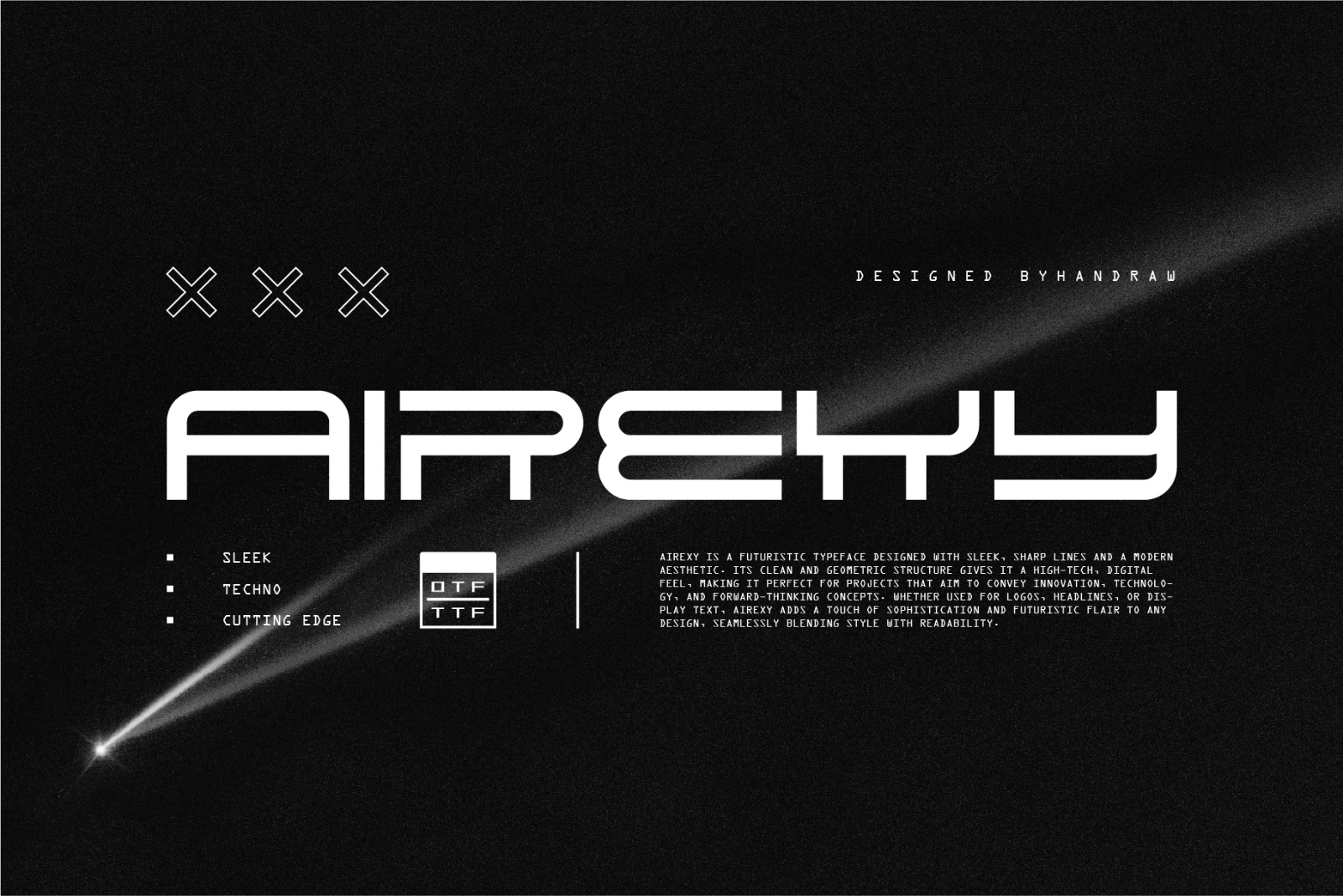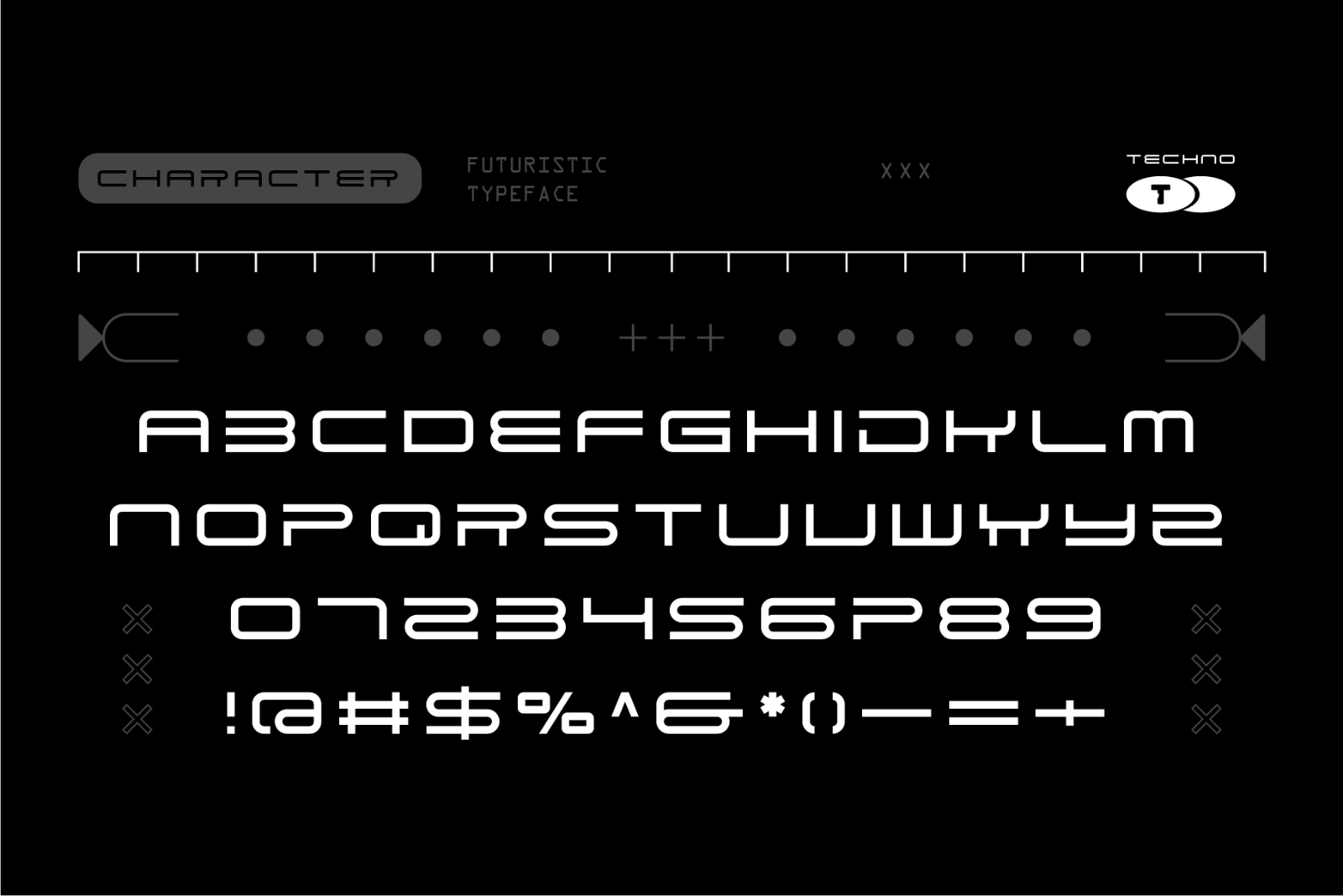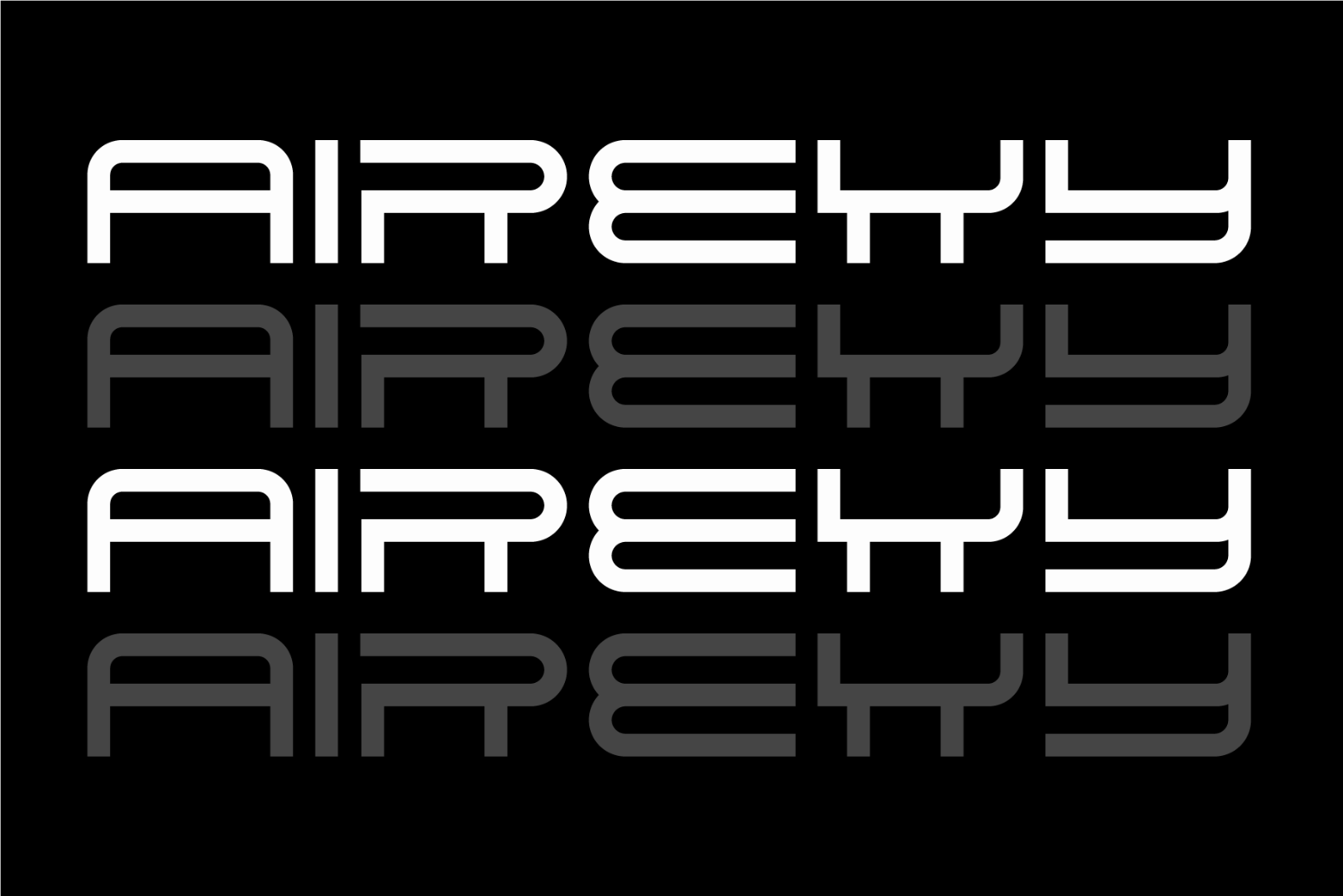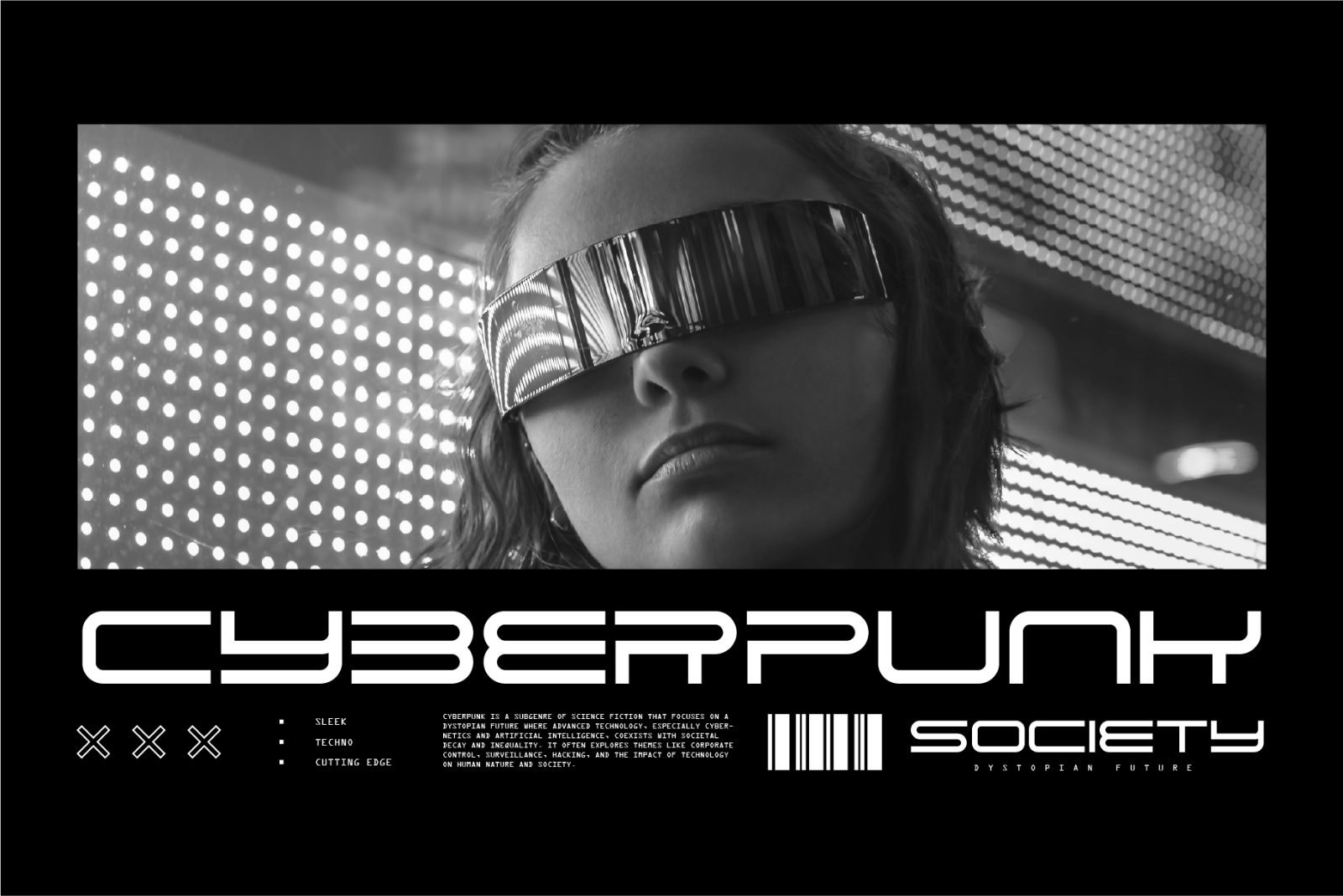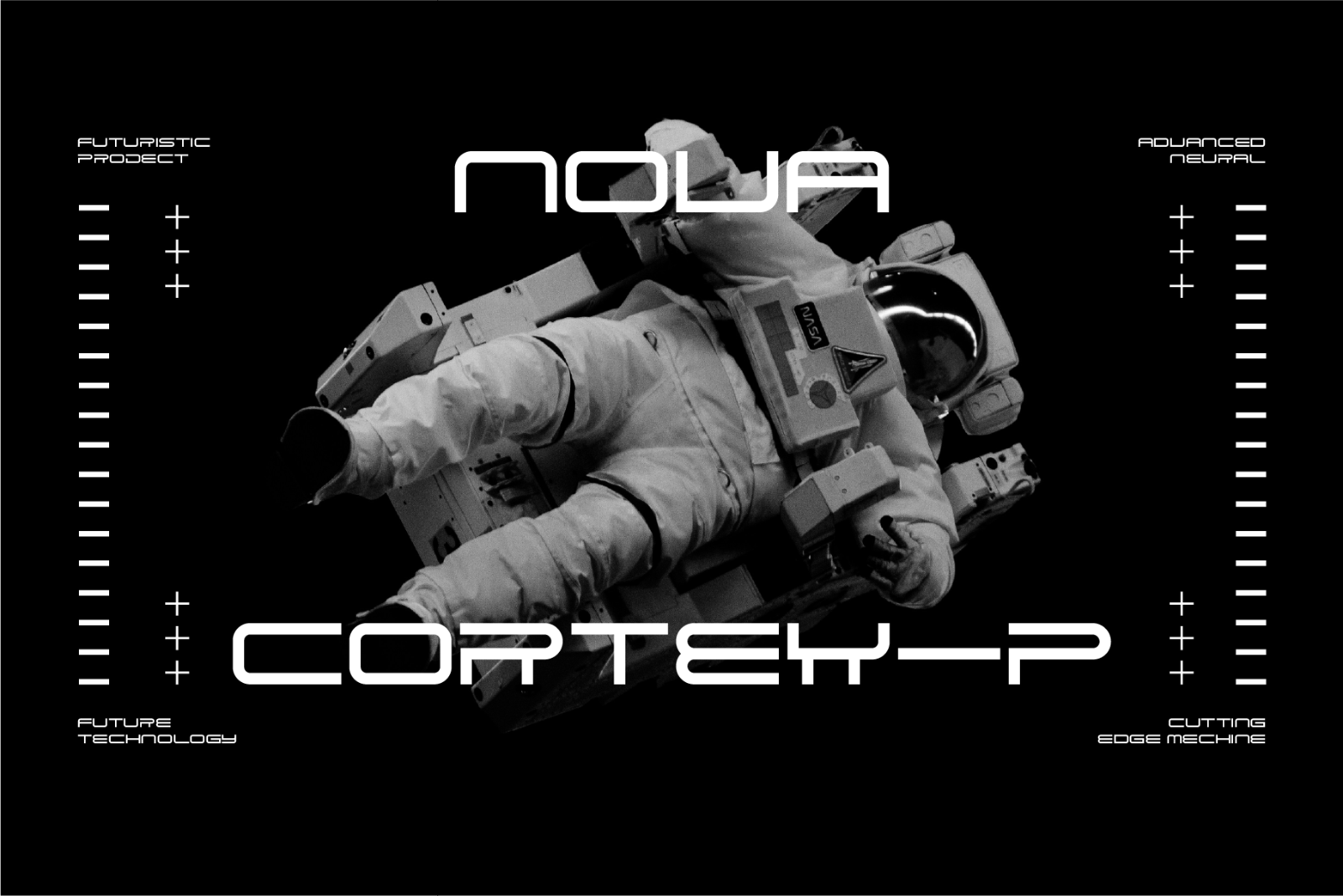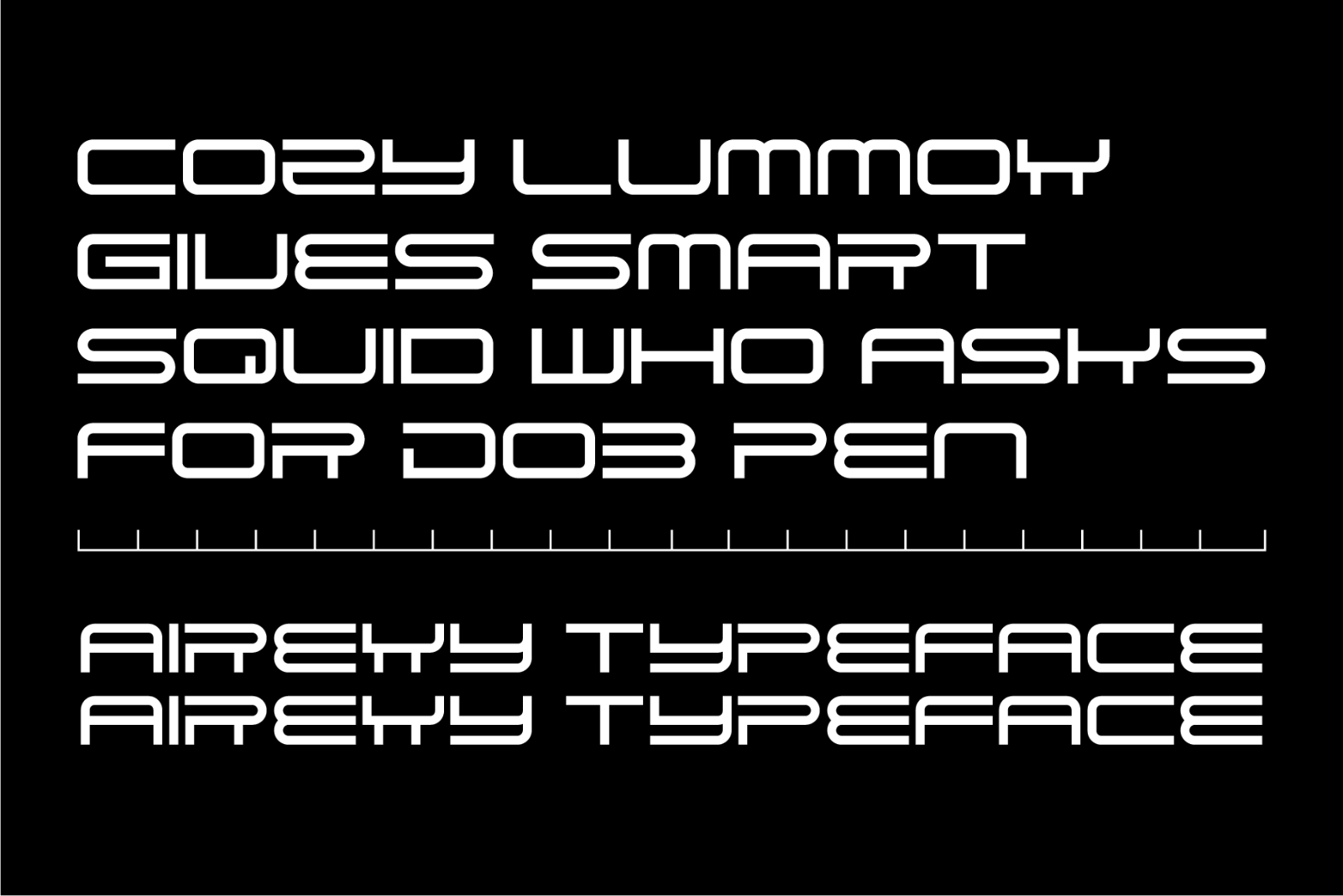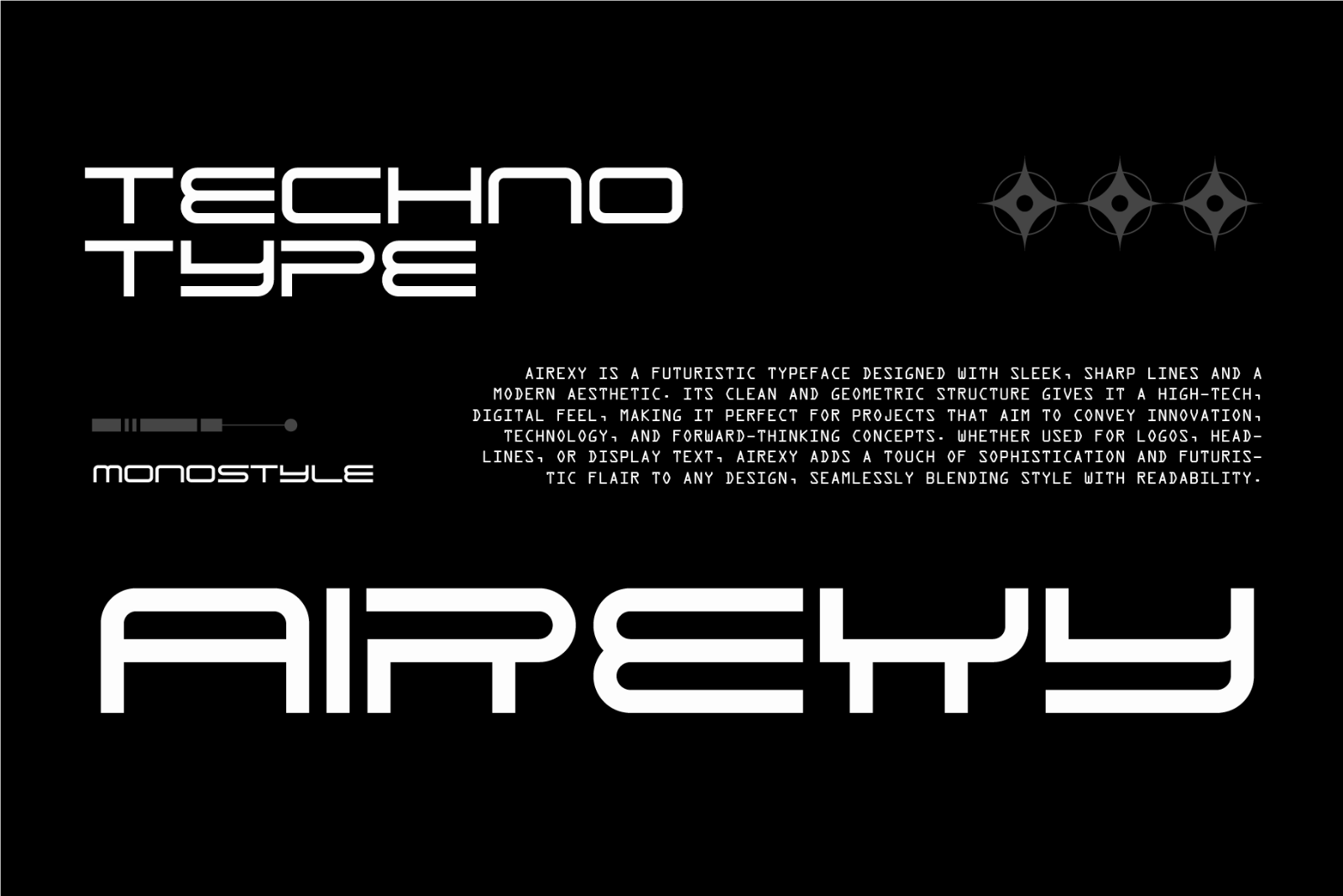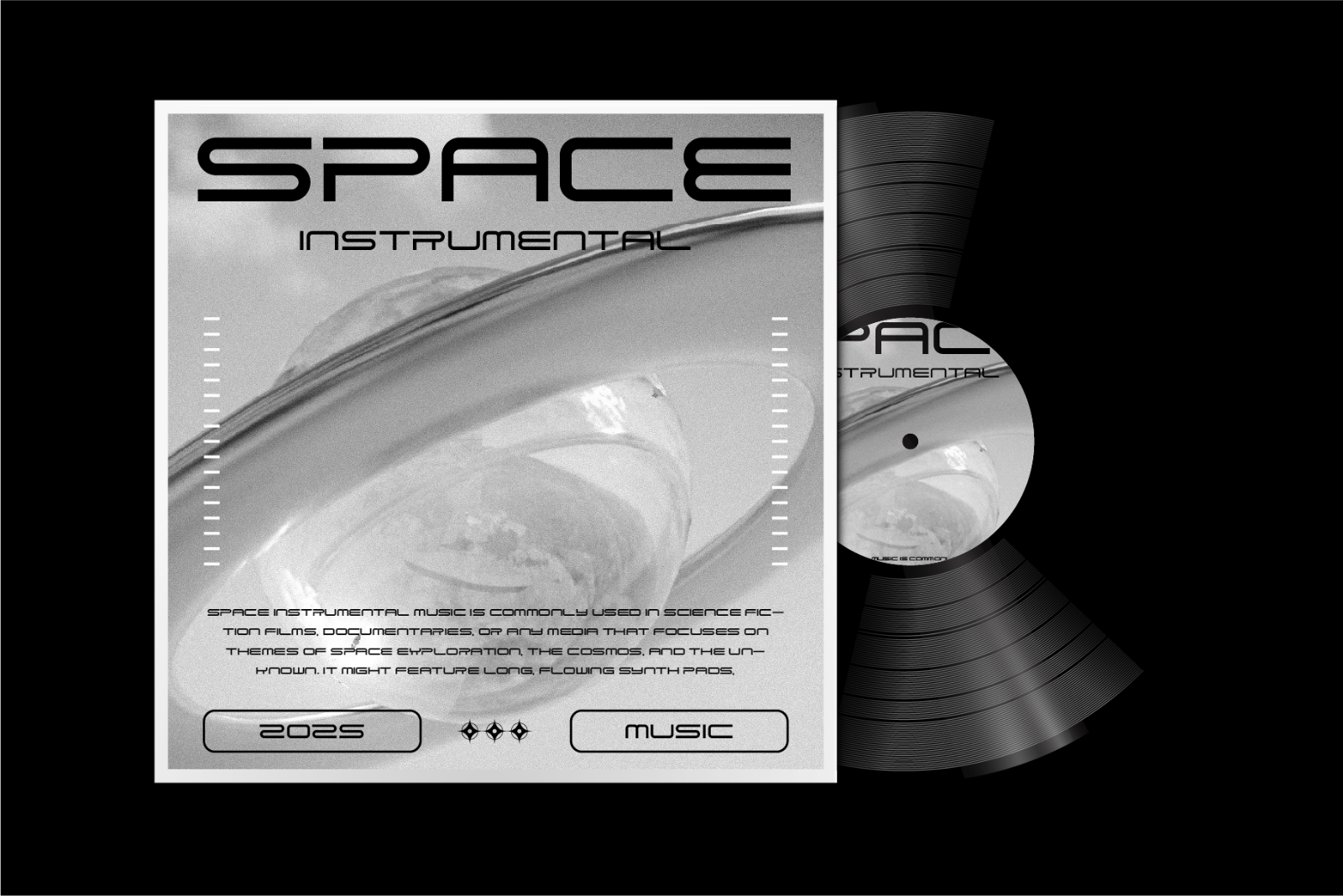
Airexy is a futuristic typeface designed with sleek, sharp lines and a modern aesthetic. Its clean and geometric structure gives it a high-tech, digital feel, making it perfect for projects that aim to convey innovation, technology, and forward-thinking concepts. Whether used for logos, headlines, or display text, Airexy adds a touch of sophistication and futuristic flair to any design, seamlessly blending style with readability.